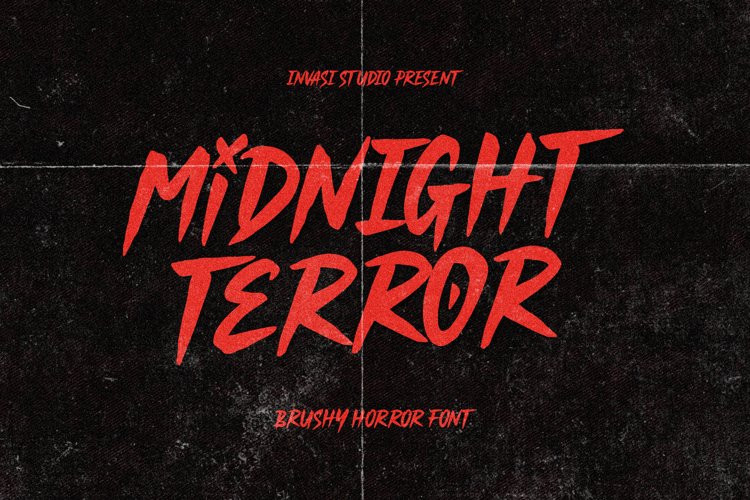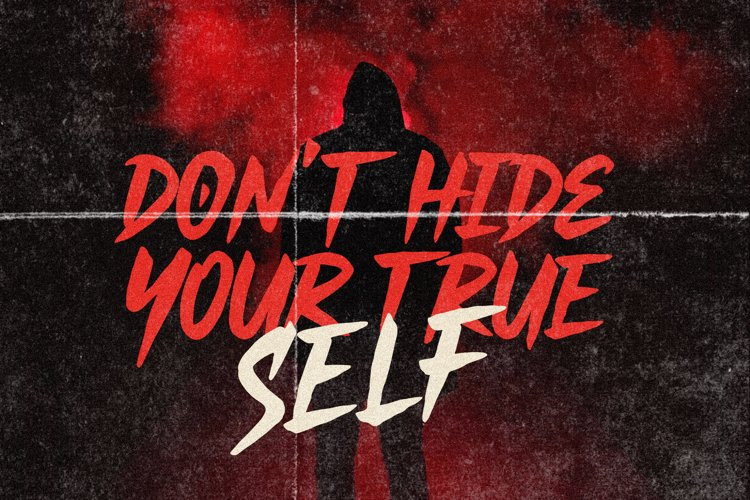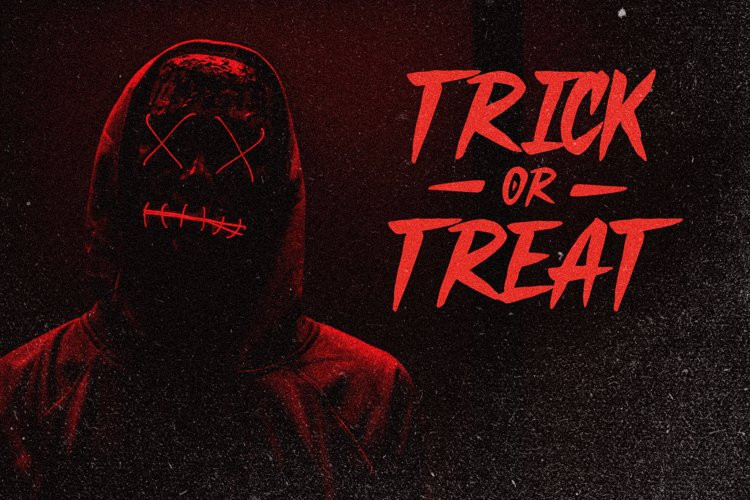
Midnight Terror Font
Midnight Terror Font has powerful and solid stroke brush styles that speak to the instant nightmare sensations when you place them into your horror design project. It was inspired by horror and thriller movie posters from the ancient age.